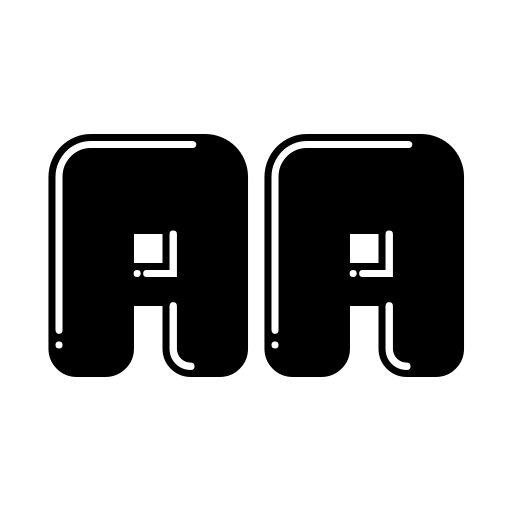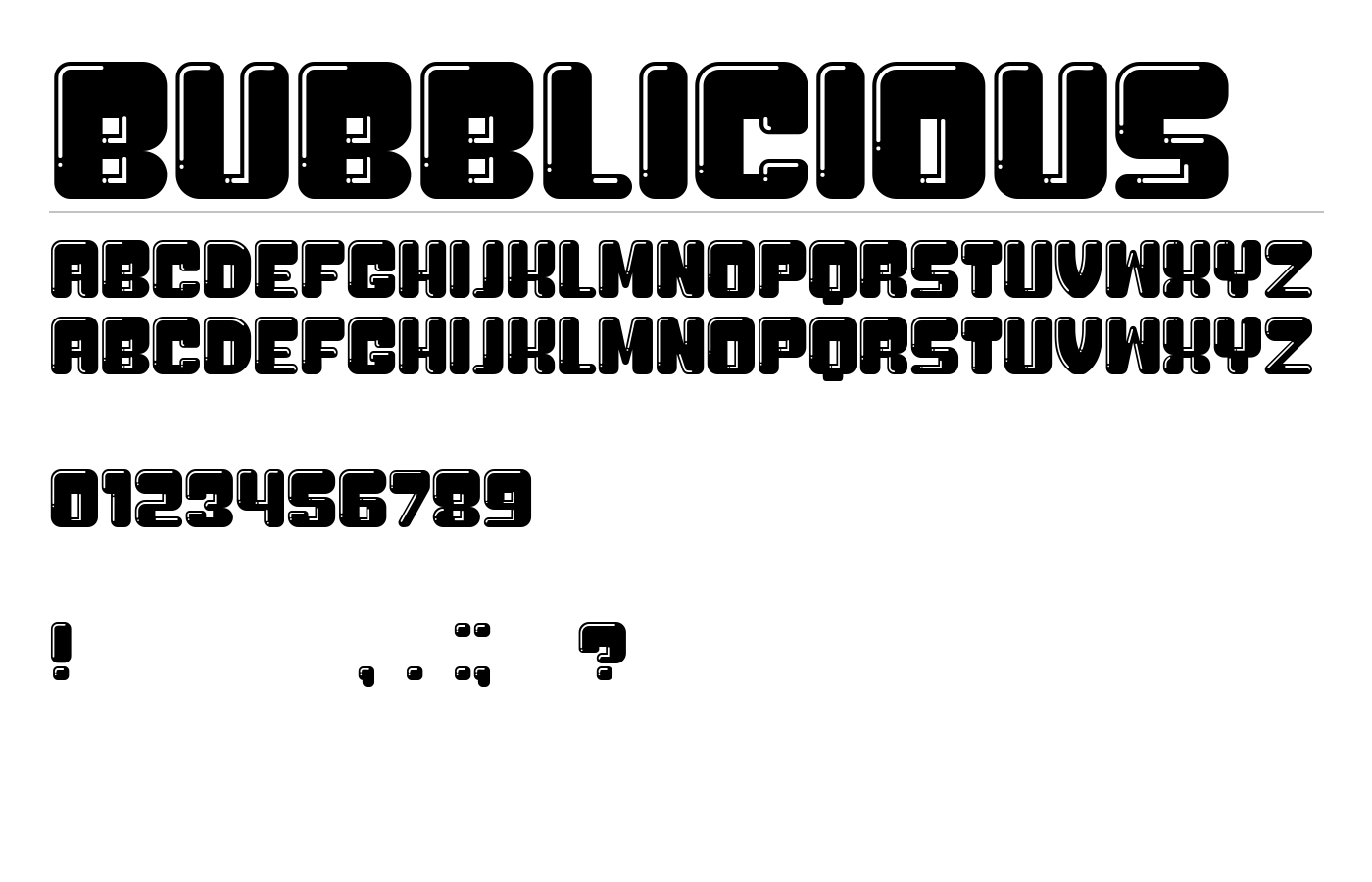
Bubblicious is a bold, playful sans serif font with a bubbly, rounded appearance that gives it a fun and energetic vibe. Its thick, compact letterforms feature soft edges and unique, slightly layered outlines that add a sense of depth and whimsy, making it perfect for eye-catching headlines, branding, and designs aimed at a youthful audience. This font works especially well for packaging, posters, and logos where a lively, modern, and approachable style is desired.
Bubblicious Font
About Bubblicious Font